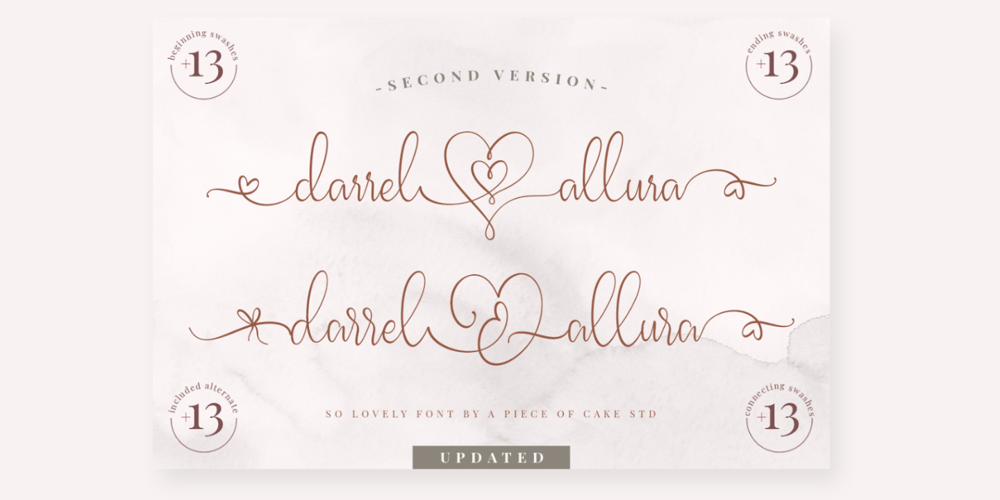
Darrel Allura Font Family was designed by Muh. Aswar, Andi Syahdang and published by Piece of Cake Typework. Darrel Allura contains 6 styles and family package options. Hello World,Introducing, Darrel Allura is a beauty script font suitable for your design project needs, such as; wedding themes, social media posts, quotes, overlays on images, tagline logos, posters, print needs, website banners, and more.Features A set of uppercase and lowercase glyphs Number, symbol, and punctuation Multilingual Support Some Swashes and Ligatures So Easy to UseAccess Swashes by keyboard key bracket left ‘ [ ‘ to feature beginning swash 1 key brace left ‘ { ‘ to feature beginning swash 2 key plus ‘ + ‘ to feature middle swash 1 key equal ‘ = ‘ to feature middle swash 2 key bracket right ‘ ] ‘ to feature ending swash 1 key brace right ‘ } ‘ to feature ending swash 2 For Example type [darrel+allura]Thank you a million times for downloading and using this font for your projects. Enjoy this font and happy creating!